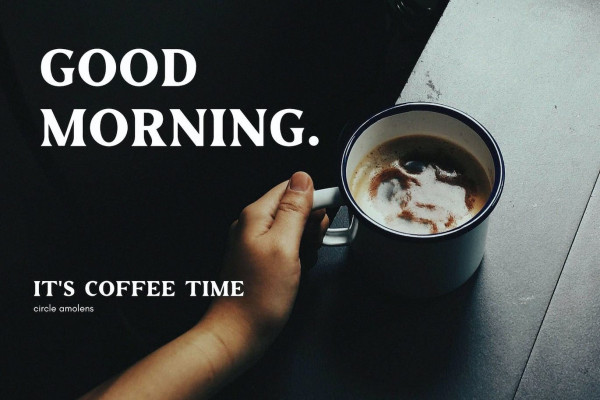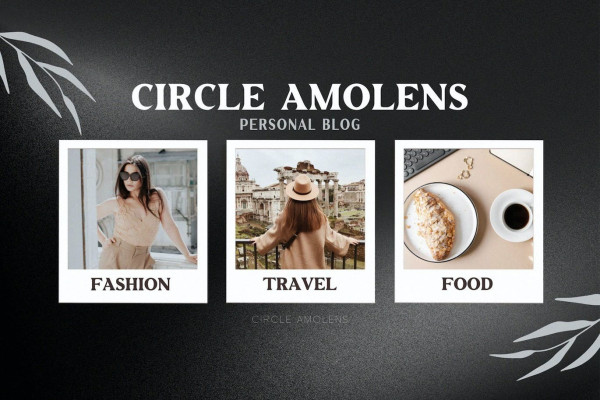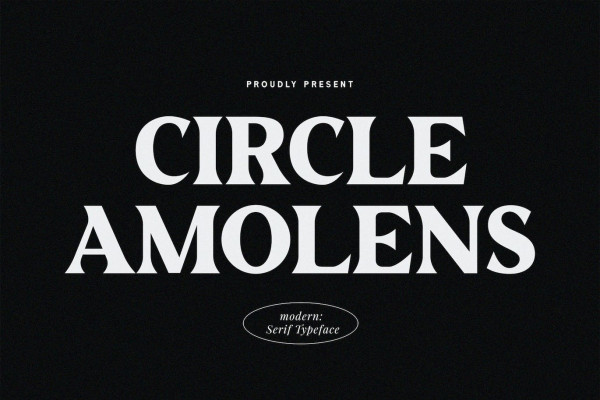
Circle Amolens Font
Circle Amolens Font, a beautiful series of letters are encapsulated in this “Circle Amolens” font. Neat lettering is perfect for modern, eye-pleasing writing needs. It gives off a modern feel while remaining stylish when used for writing.